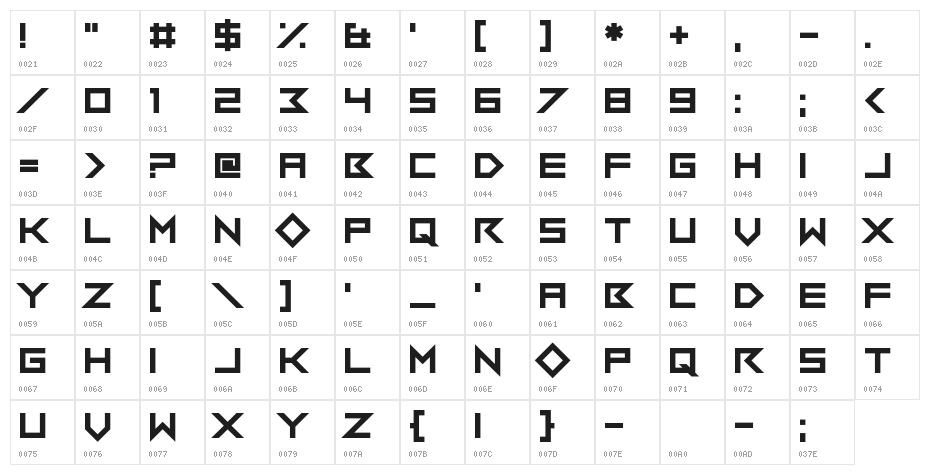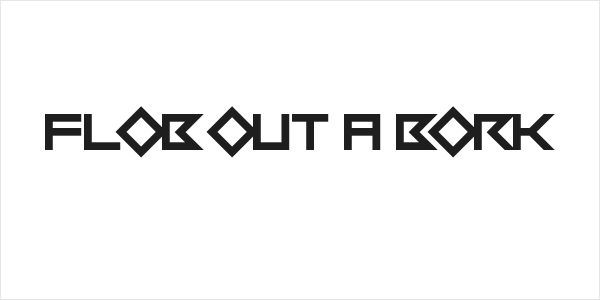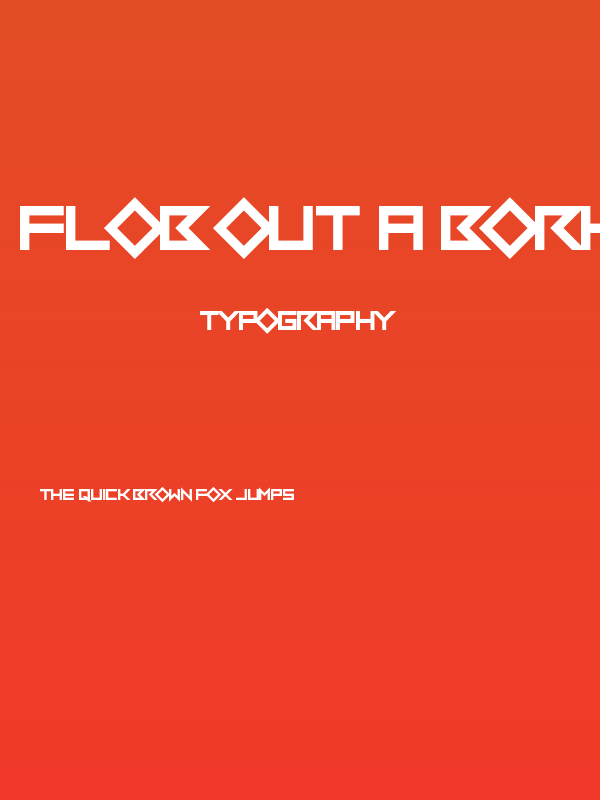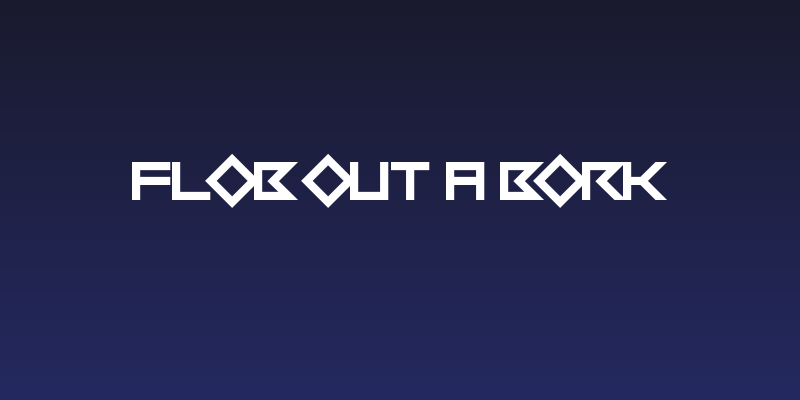
Flob Out a Bork Font
Flob Out a Bork Description
This font features a bold, geometric design with sharp angles and a futuristic aesthetic. The characters are constructed with thick, uniform strokes, giving them a strong and impactful presence. The angular shapes create a sense of movement and dynamism, making it ideal for attention-grabbing designs. The uppercase and lowercase letters maintain a consistent style, while the numbers and special characters complement the overall look with similar angular forms. This font is perfect for projects that require a modern and edgy appearance.
| Proposed Projects | Ideal for sci-fi themed posters, video game graphics, tech branding, and modern advertising. |